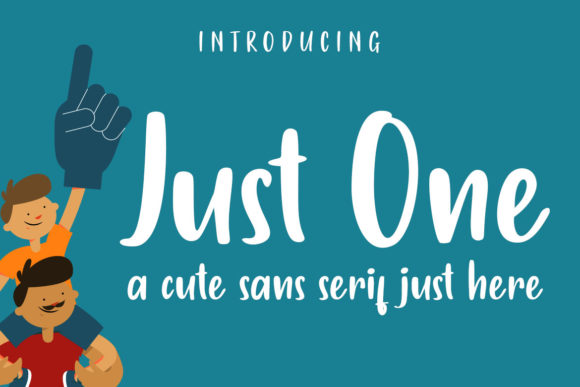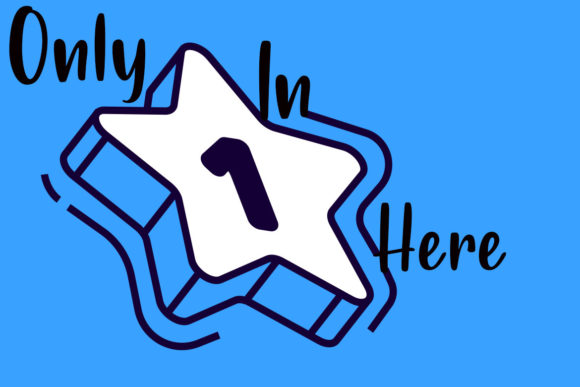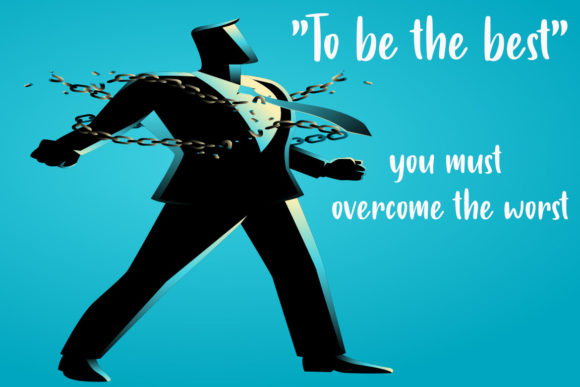
Just One Font
About Just One Font
Just one is a fun and friendly handwritten font. Its casual charm makes it look very simple, easy to read and, ultimately, very versatile. This font will look amazing in any context, whether it’s used on a DIY, outdoor project or as a main title!